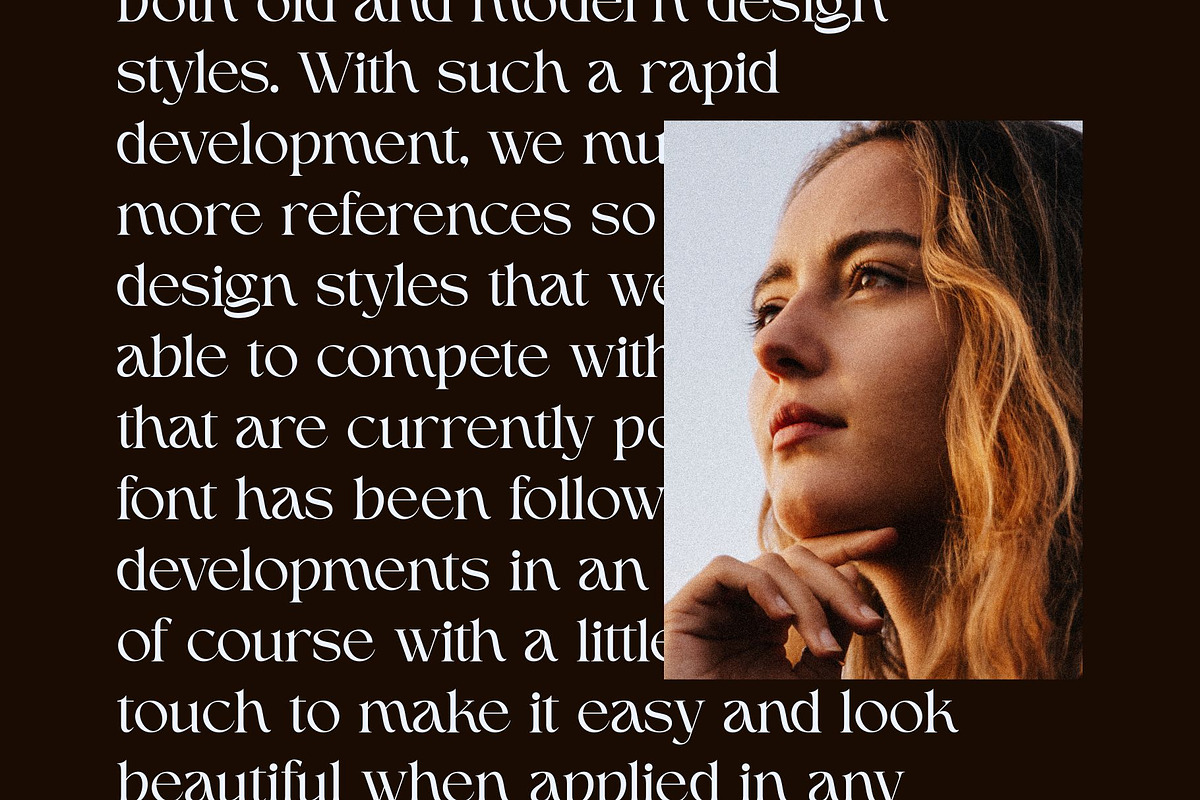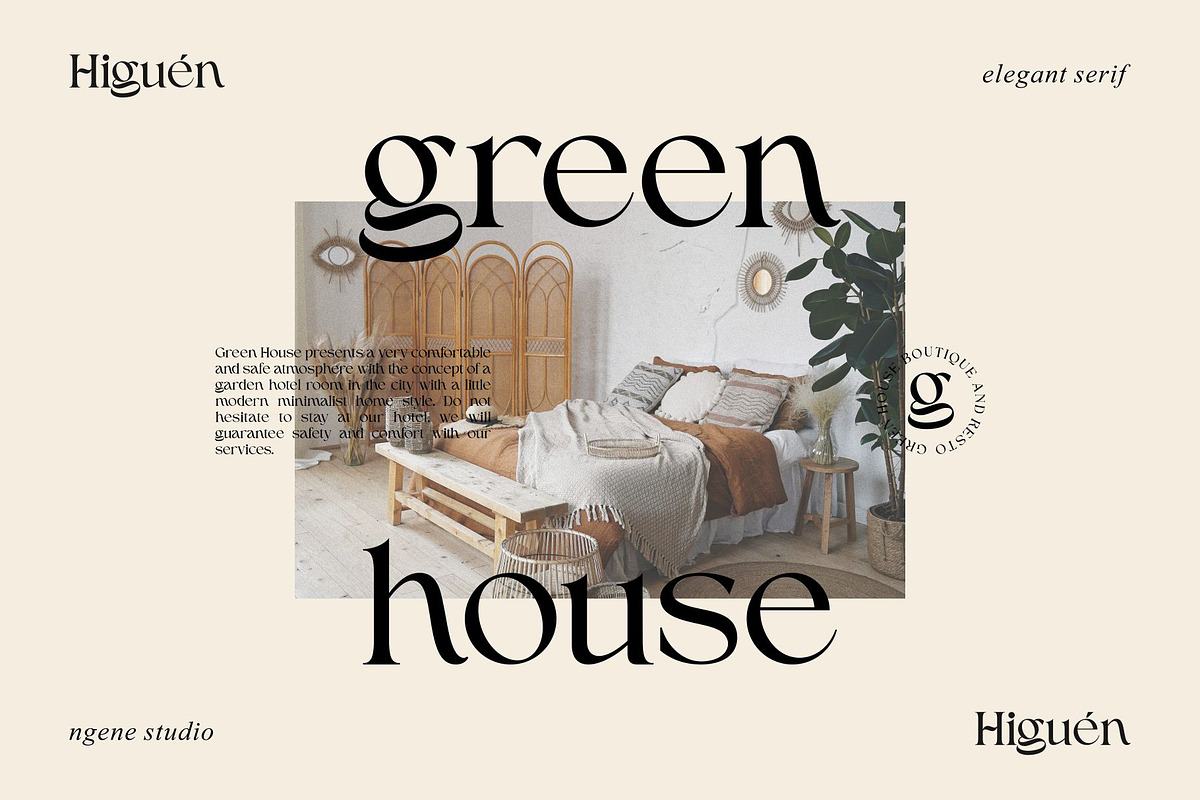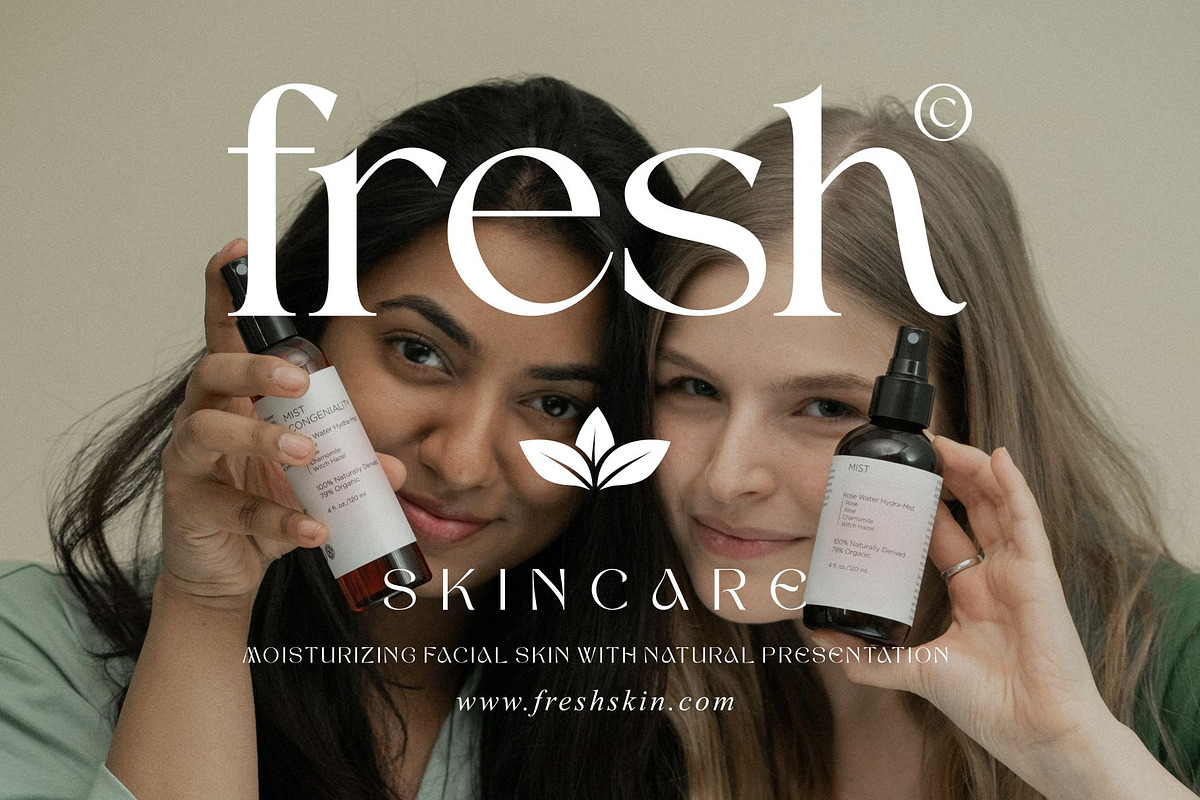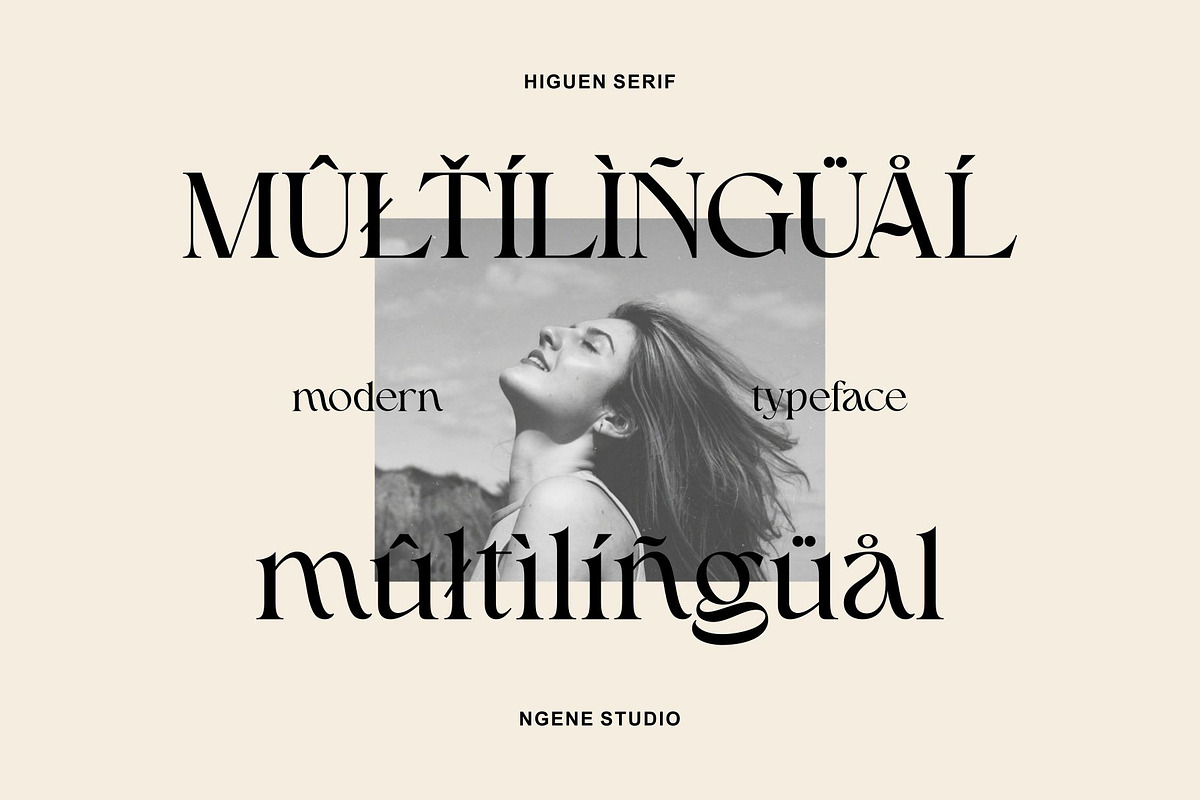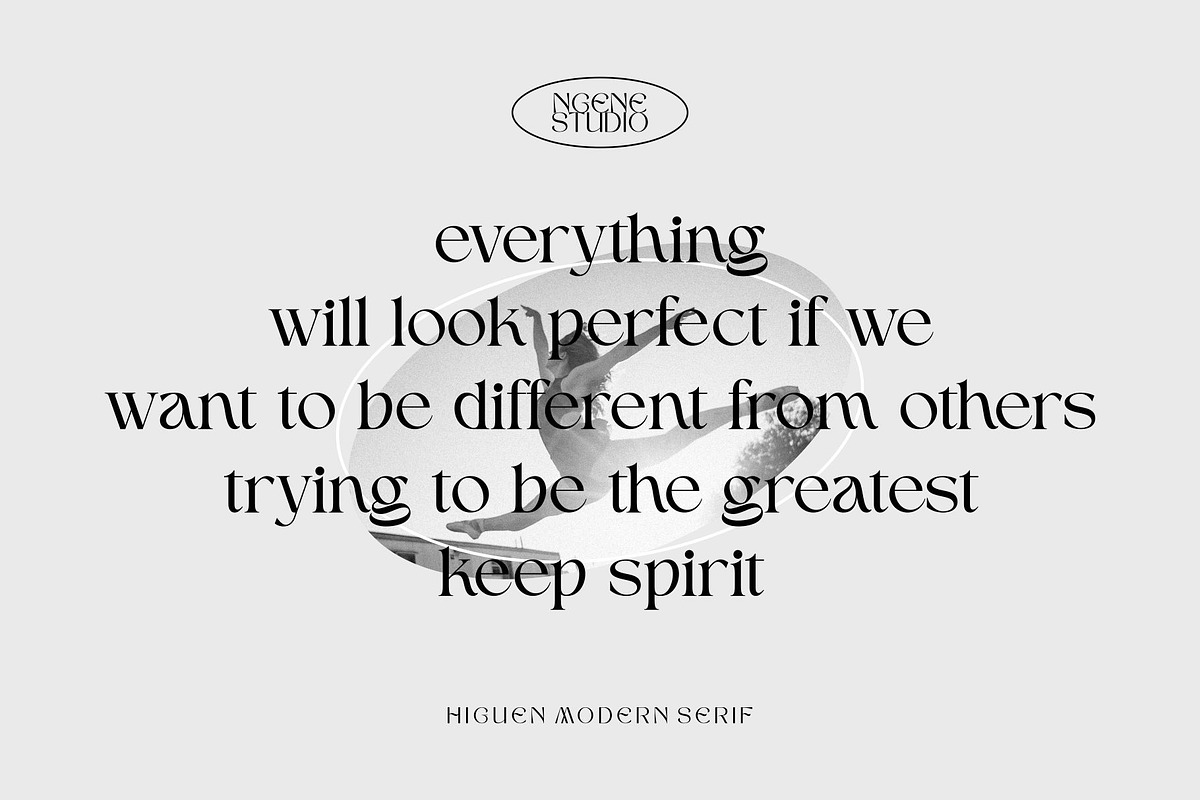
Higuen is a vintage-style serif font with an elegant and modern touch, this font draws from a wide variety of characters.
It is suitable for creating elegant, chic, lifestyle design such as logos, title, cover, branding, display and magazine, and more.
A very strong font character will make your design different and more attractive. This font is also multilingual, making it easier for you to use the language you need.